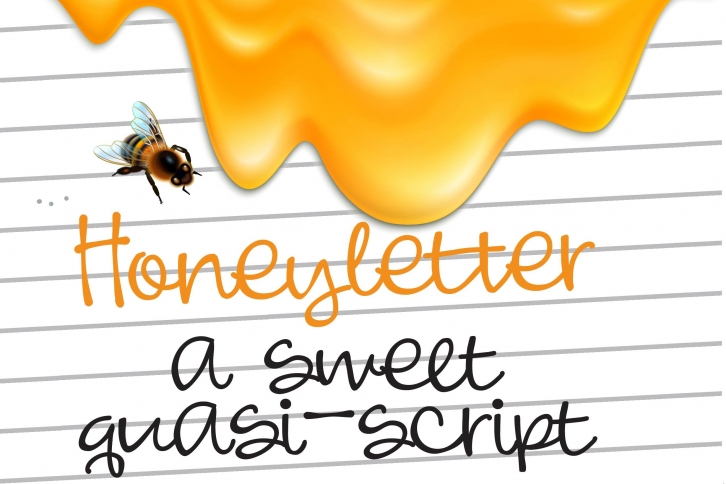
Honeyletter is a quirky and fun handwritten font. It is perfect for product packaging, branding project, magazine covers, social media, wedding, or just used to express words above the background.